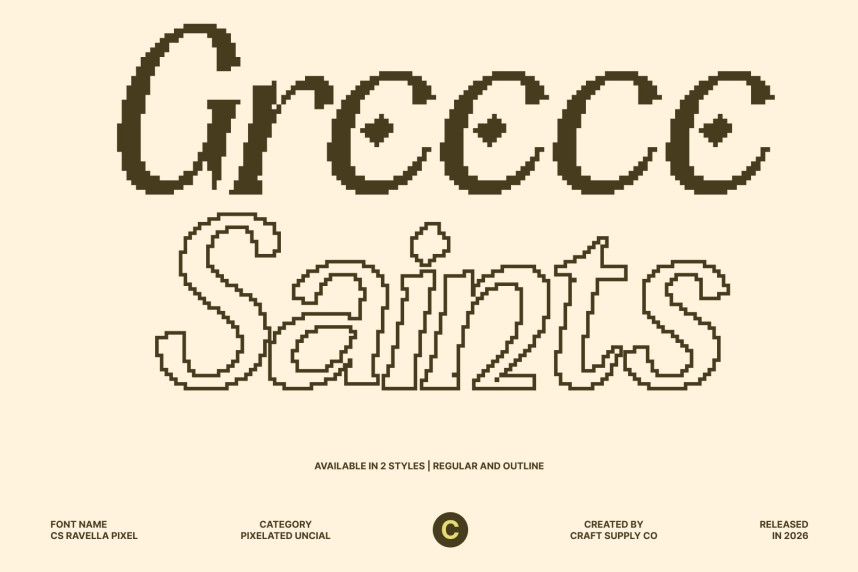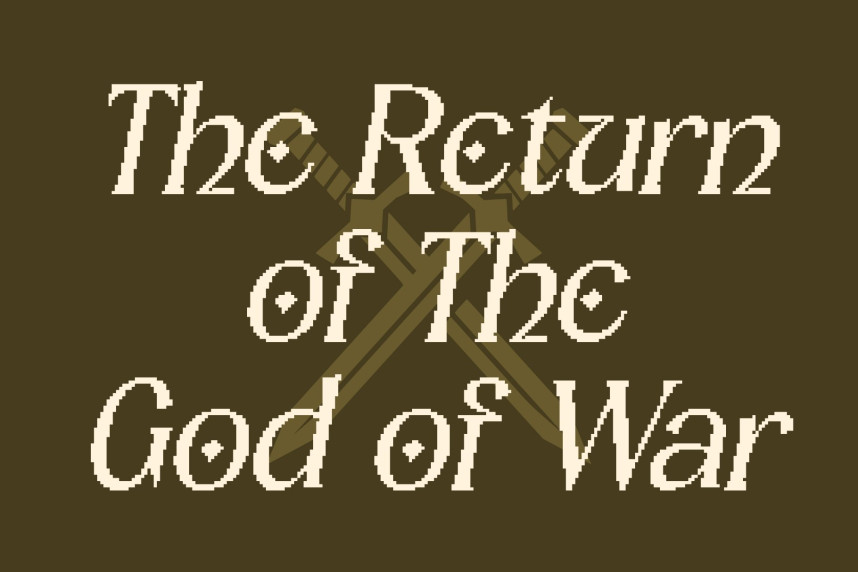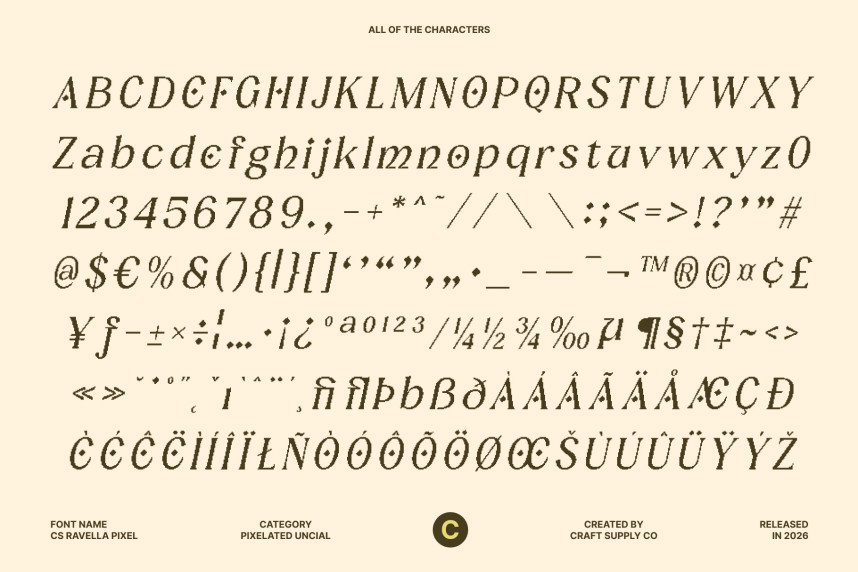
CS Ravella Pixel Font
CS Ravella Pixel Font – Uncial Font with Historical Elegance Inspired by Ancient Manuscripts. This is an uncial-style font inspired by the timeless beauty of ancient manuscripts and early handwritten traditions. Its historical letterforms echo the rhythm and structure of classical script, reimagined through a modern pixel aesthetic. This fusion creates a unique dialogue between heritage and digital expression, allowing the past to live again in contemporary design.